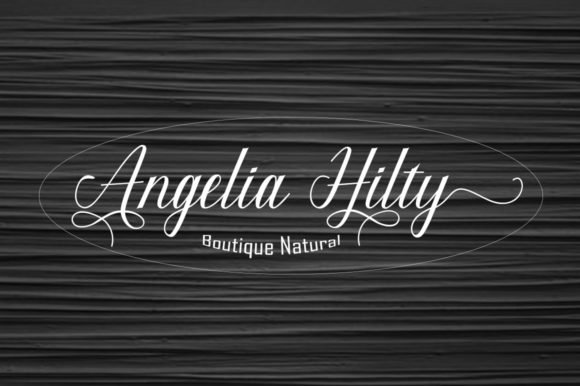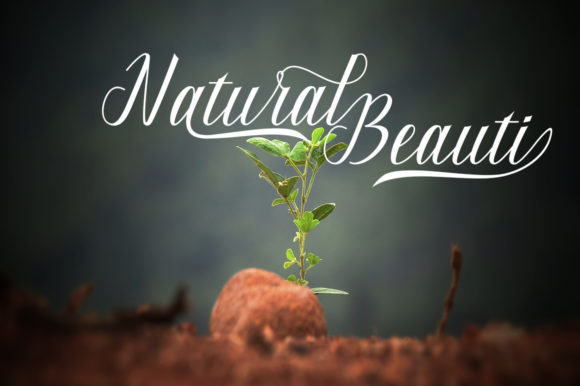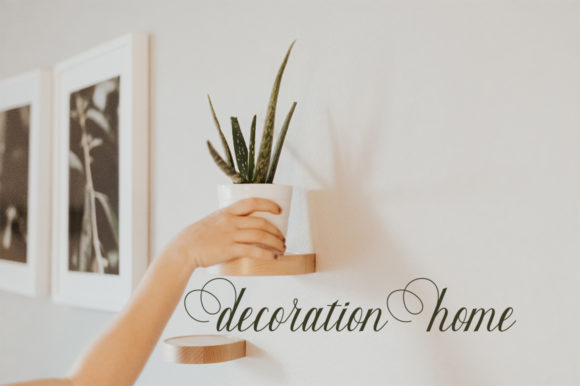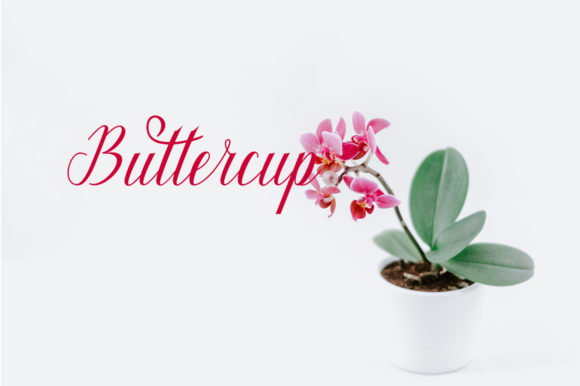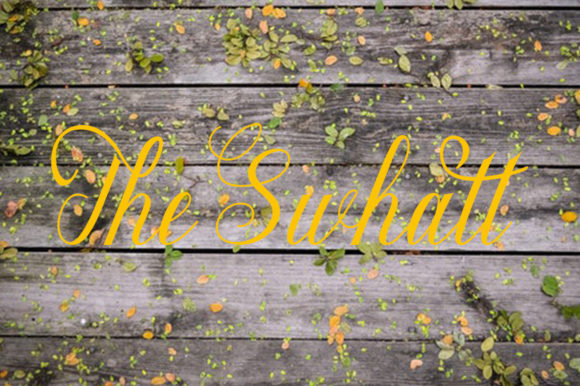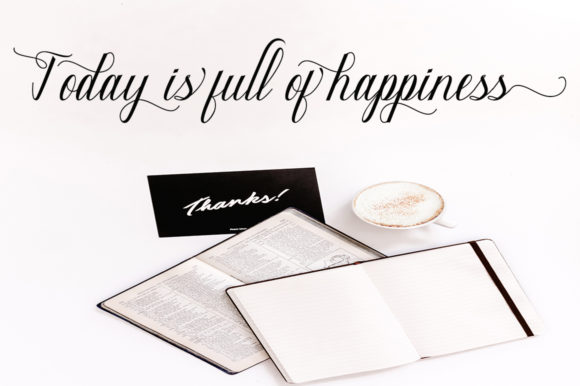
Maillane Font
About Maillane Font
Maillane is a beautiful, elegant and charming handwritten font with a unique twist. It will turn any design project into a stand out!